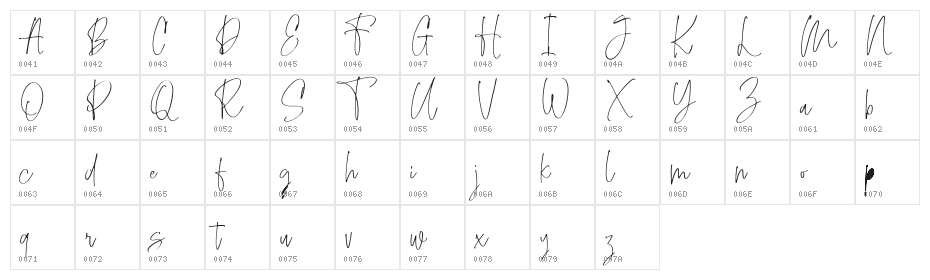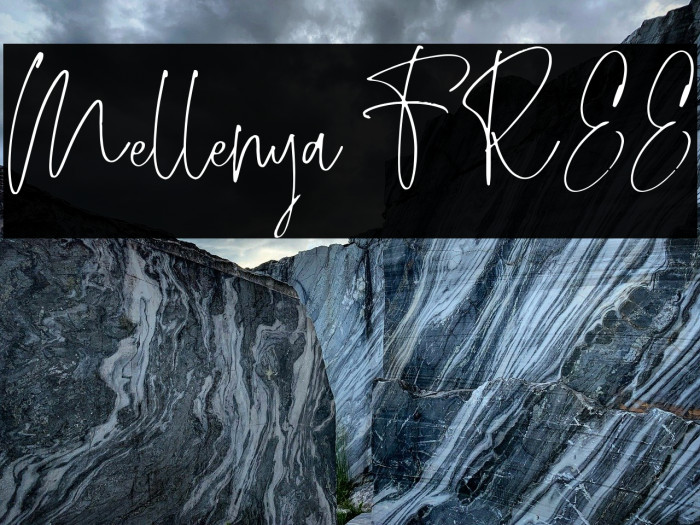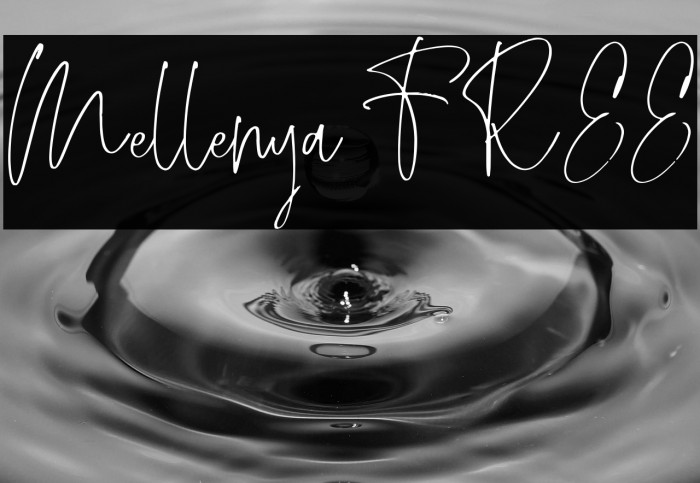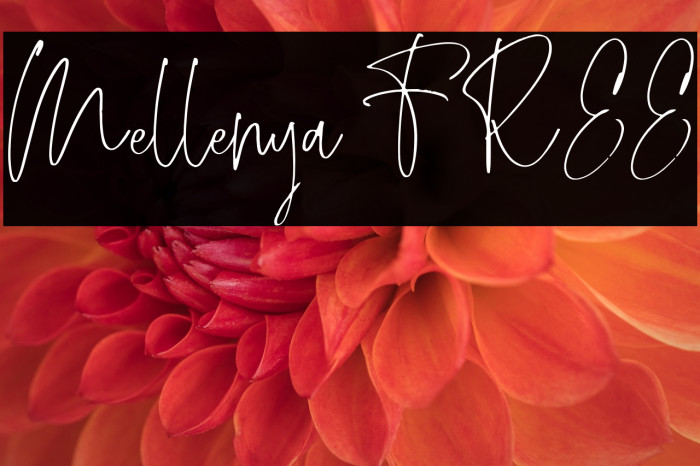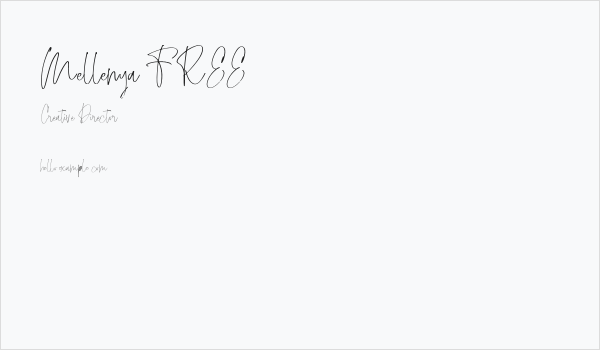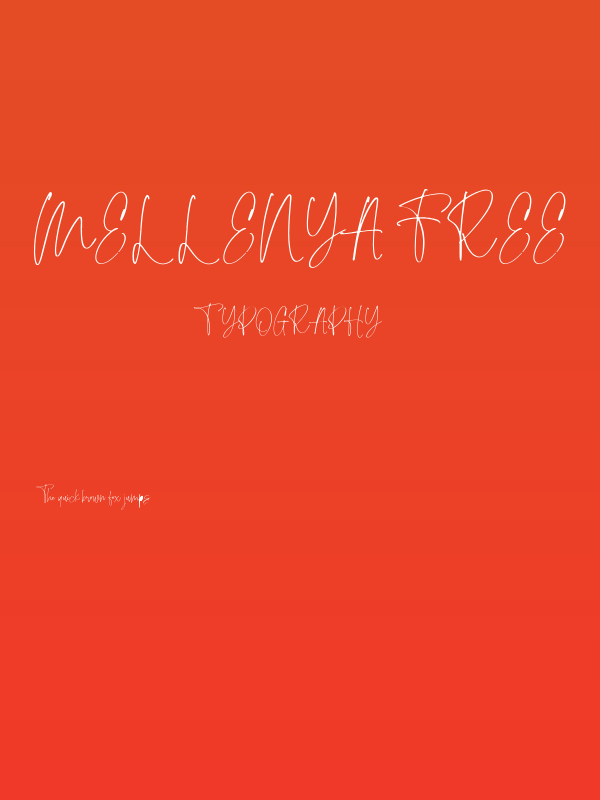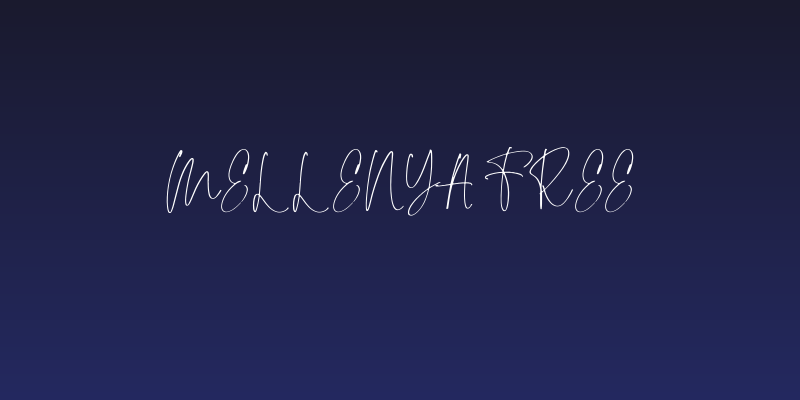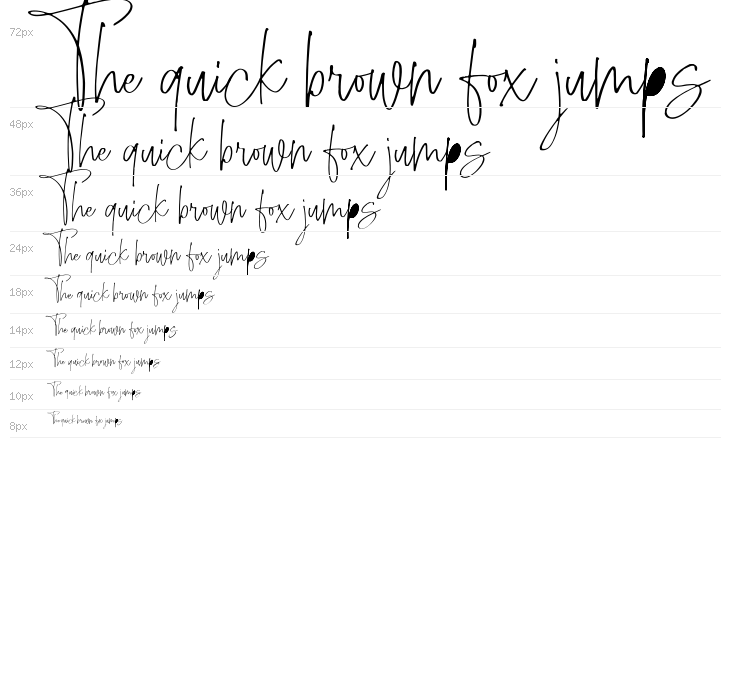
Mellenya FREE Font
Mellenya FREE Description
This font features a delicate and flowing handwritten style, characterized by its elegant and fluid strokes. The uppercase and lowercase letters exhibit a natural, cursive form, with a slight slant that adds to its graceful appearance. The strokes are thin, with a consistent line weight that gives the font a light and airy feel. The characters are well-spaced, maintaining readability while preserving the artistic flair of the script. This font is particularly suitable for projects that require a personal touch, such as invitations, greeting cards, or branding materials that aim to convey elegance and sophistication.
| Overall Style | Elegant, Artistic |
| Proposed Projects | Ideal for wedding invitations, personal branding, greeting cards, and elegant stationery. |